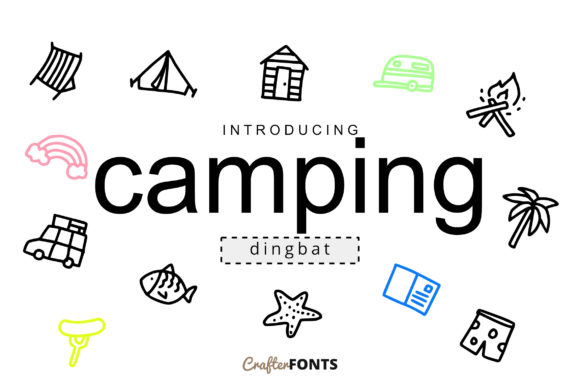
The Great Outdoors Meets Creative Freedom: A Deep Dive into the Camping Doodle Font
I’ll never forget the moment I stumbled upon the perfect font for a camping-themed logo project. I was working late, surrounded by design briefs and empty coffee cups, when I discovered the Camping Doodle Font. It was as if the stars aligned, and my design worries disappeared. The quirky, hand-drawn aesthetic of this font instantly captured the carefree spirit of camping and the great outdoors. In this article, we’ll explore the ins and outs of the Camping Doodle Font, and how you can use it to elevate your creative projects.
What I Love About Camping Doodle Font
- ✨ Simple yet charming design that’s perfect for a wide range of creative projects
- ✅ Highly versatile and adaptable for various design styles and themes
- 🎨 Doodle-style illustrations add a playful touch to any design
While the Camping Doodle Font is an excellent choice for many projects, there are a few things to keep in mind:
- ⚠️ Limited character set compared to more comprehensive fonts
- 🤔 May not be suitable for body text or lengthy content due to its decorative nature
The Story Behind the Font: Designer Inspiration
The Camping Doodle Font was created with the intention of capturing the carefree spirit of the great outdoors. The designer, inspired by camping trips and nature excursions, aimed to create a font that would bring a sense of adventure and playfulness to any design project. With its simple yet charming design, the Camping Doodle Font has become a favorite among designers and crafters alike.
Q: What type of projects is the Camping Doodle Font best suited for?
A: The Camping Doodle Font is perfect for a wide range of creative projects, including logos, ornaments, and other design elements that require a playful, outdoorsy touch.
Q: Is the Camping Doodle Font available in different weights or styles?
A: The Camping Doodle Font may have limited variations, but it’s possible to experiment with different sizes, colors, and effects to achieve the desired look.